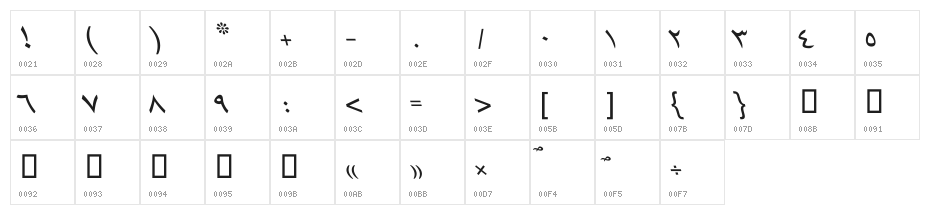
Sols Type Italic Font
Sols Type Italic Description
This font features a distinctive italic style with a modern twist. The characters are elegantly slanted, giving a sense of motion and fluidity. The strokes are smooth and consistent, with a medium contrast that adds to the readability while maintaining a stylish appearance. The numerals are uniquely designed, with a slight curvature that complements the overall aesthetic. Special characters are crafted with attention to detail, ensuring they blend seamlessly with the alphabetic characters. This font is versatile, suitable for both digital and print media, and can be used to add a touch of sophistication to any project.